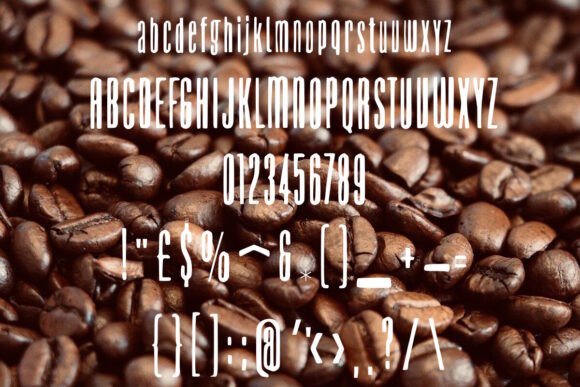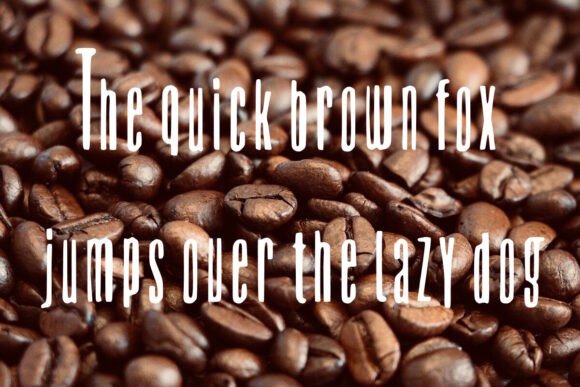
Introduction to Skinny Latte Font
As you sit at your desk, sipping on a skinny latte and scrolling through design inspiration, you stumble upon the perfect font to elevate your next creative project. The search is over, and we’re excited to introduce you to the Skinny Latte Font – a chic and modern font that’s as smooth as your favourite coffee order!
With its tall, slender letters and minimalist aesthetic, Skinny Latte Font exudes effortless style, making it the ultimate choice for fashion-forward designs, clean branding, or coffee shop vibes. Whether you’re a seasoned designer or a creative entrepreneur, this font is a valuable design resource that will take your projects to the next level.
Key Features of Skinny Latte Font
- High-quality, modern design perfect for creative projects and design resources.
- Features a clean, minimalist aesthetic with precise lines and subtle nuances, making it suitable for a range of applications.
- Unique characteristics include a slender, elegant feel and a range of subtle stylistic variations, adding depth and interest to any design.
Honest Review: Skinny Latte Font
I recently stumbled upon the Skinny Latte Font, and I must say it’s a great addition to my design resource collection. This font is perfect for any creative project that requires a modern and elegant touch.
- ✨ High-quality design that’s perfect for modern creative projects
However, there are a few limitations to consider. The font is a bit limited in terms of character set, which may not be suitable for projects that require a wide range of characters.
- ⚠️ Limited character set may not be suitable for complex projects
Overall, I’m quite impressed with the Skinny Latte Font. It’s a great addition to any designer’s toolkit, and its high quality and versatility make it a must-have for any creative project.
The Skinny Latte Font is a high-quality, free download design resource ideal for creative projects. With its sleek and modern aesthetic, this font is perfect for adding a touch of sophistication to your designs.
Tips for Getting the Most Out of Skinny Latte Font
Pair the Skinny Latte Font with other design elements, such as icons and graphics, to create a visually appealing design.
Common Use Cases for Skinny Latte Font
The Skinny Latte Font is perfect for:
Business cards and marketing materials
Wedding invitations and event designs
Blog posts and social media graphics
Alternatives to Skinny Latte Font
Nordic Sans
Nordic Sans is a high-quality, modern sans-serif font ideal for creative projects that require a clean and minimalist design. It’s available for free download and features a transparent background, making it perfect for logos, branding, and digital design. When to use: Nordic Sans is suitable for projects that demand a sleek and sophisticated look.
Comparison to Skinny Latte Font: Nordic Sans has a more geometric and modern feel compared to the Skinny Latte Font, which is more elegant and refined. While both fonts are suitable for digital design, Nordic Sans is more versatile and can be used for a wide range of creative projects.